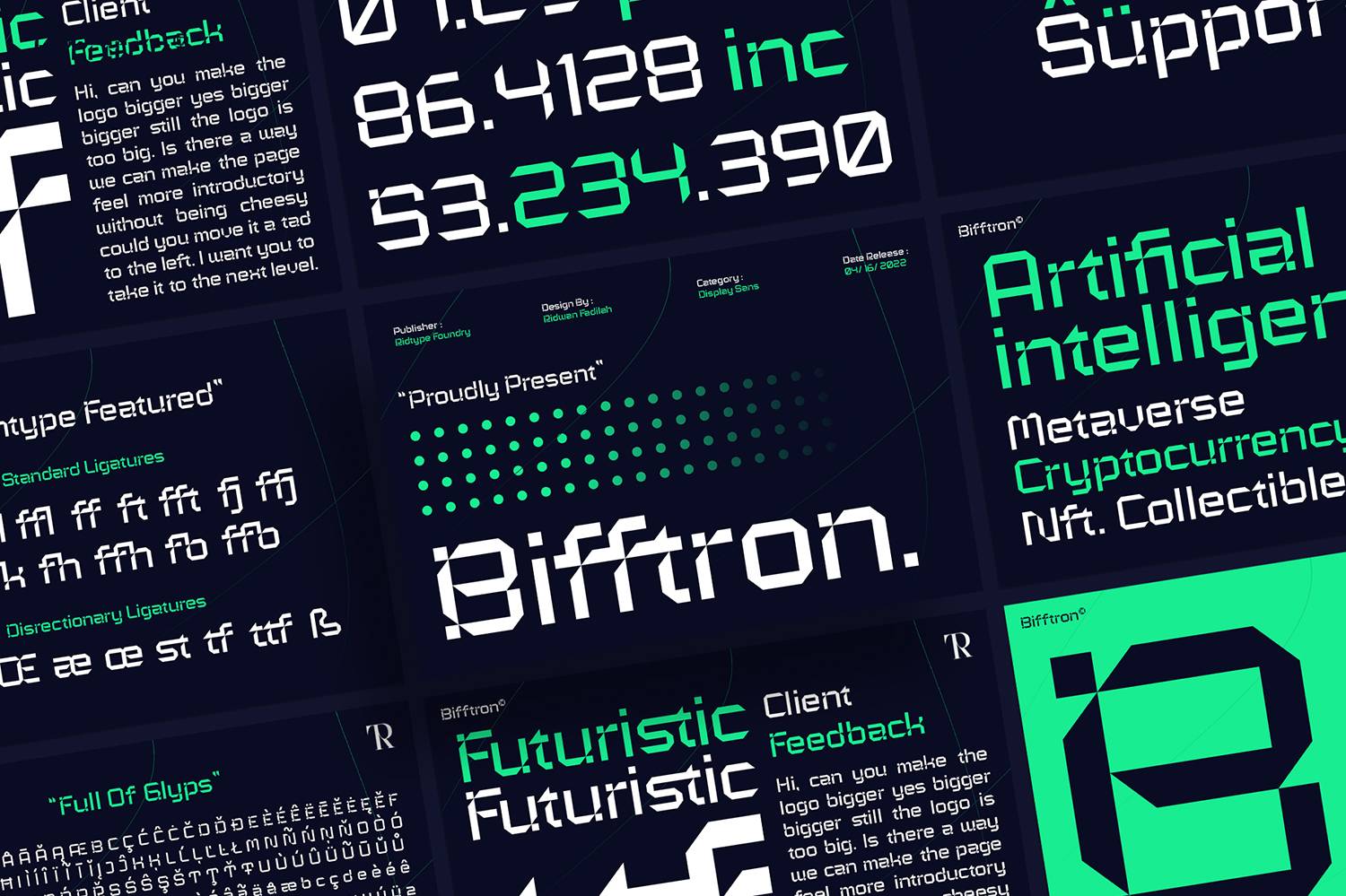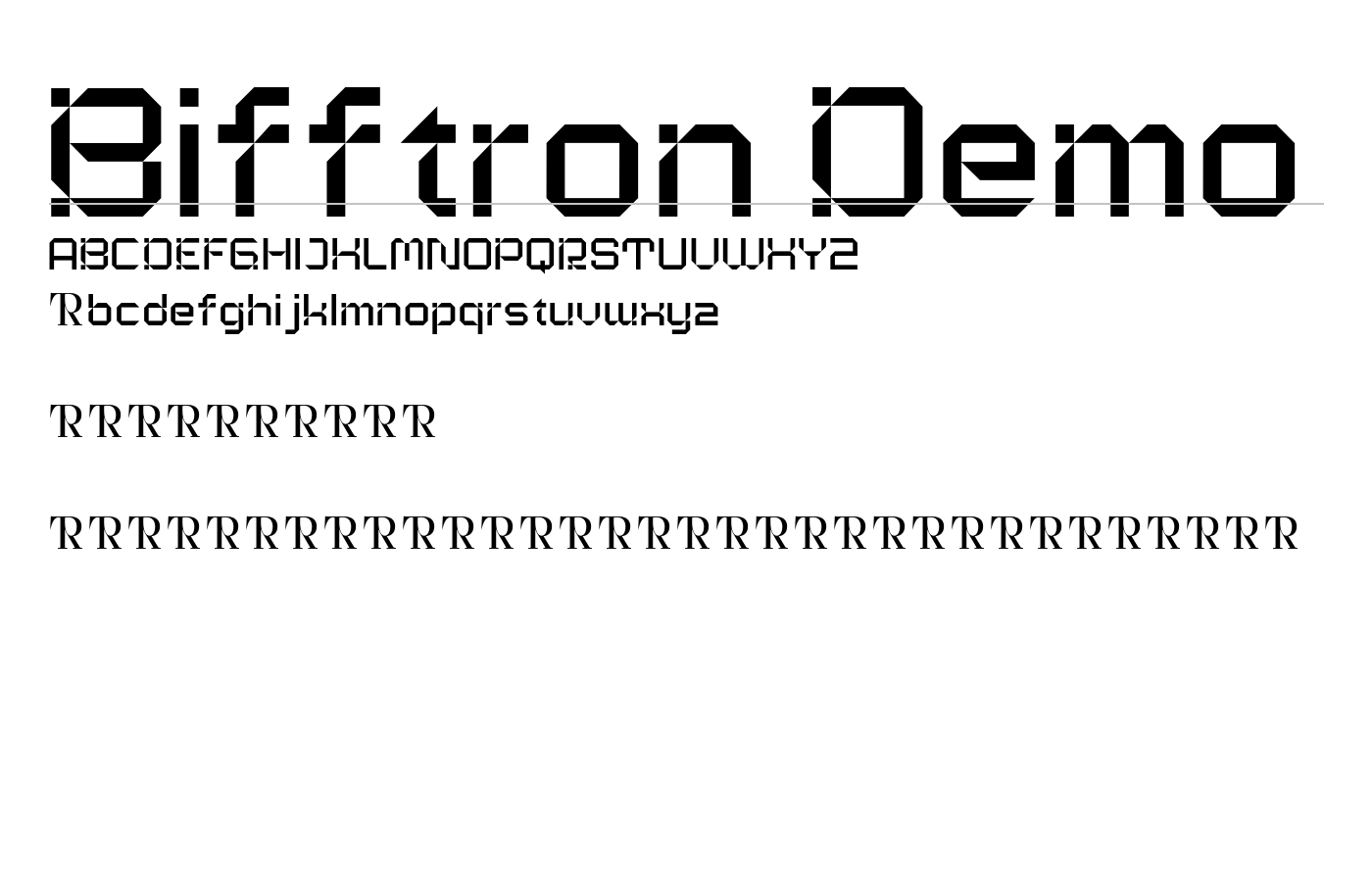
Bifftron is a distinctive sans serif font characterized by its angular, geometric letterforms and a tech-inspired, angular style that combines a bold, monospaced look with unique cut-out details. It conveys a futuristic and digital vibe, making it ideal for technology branding, gaming, or digital projects that require a modern, edgy appearance. Its sharp, structured design ensures strong visual impact for headlines, logos, and creative digital media.
Bifftron Font
About Bifftron Font
| Designer | Ridwanfil (Ridwan Fadilah) |
| Trademark | Bifftron by Ridtype foundry |